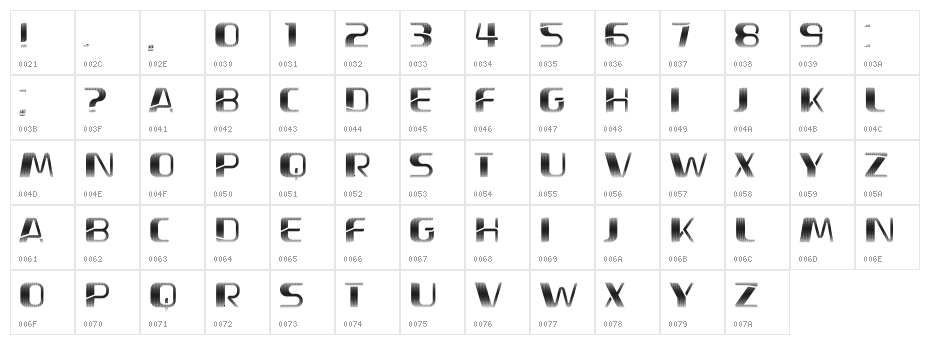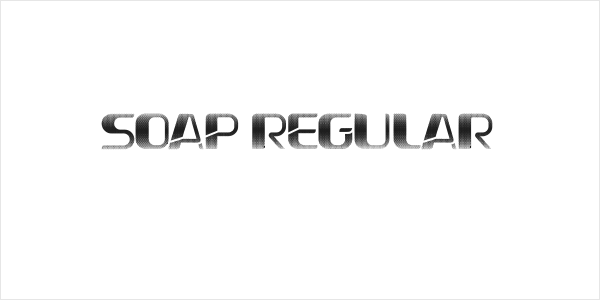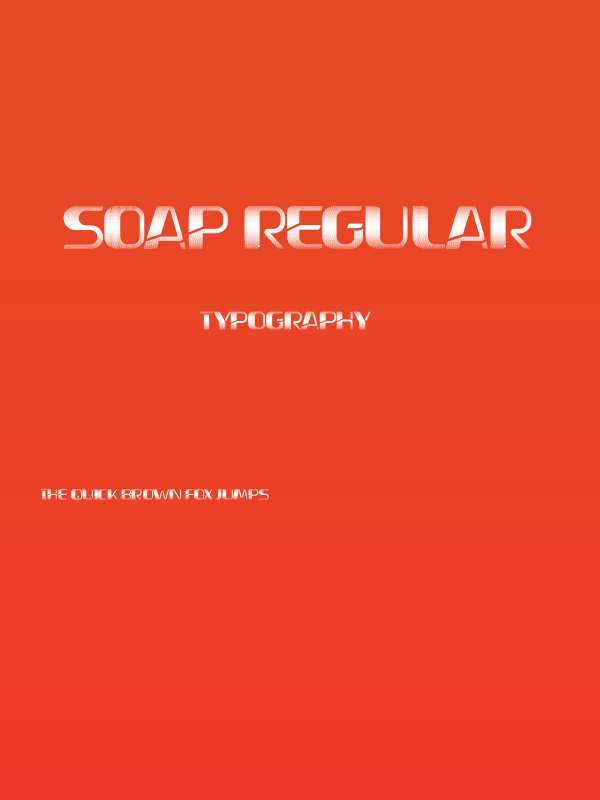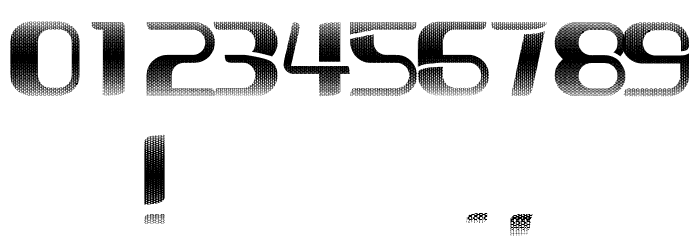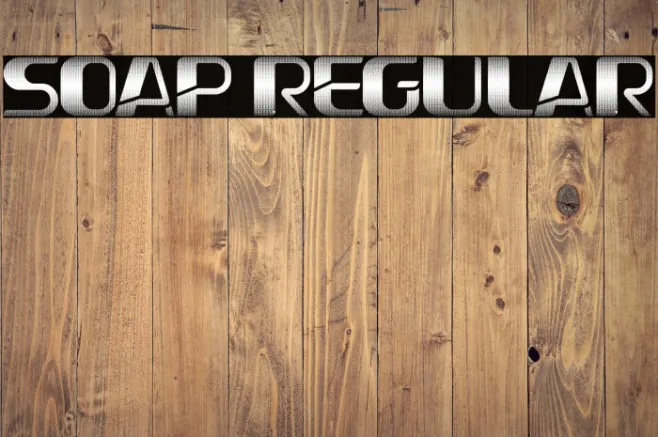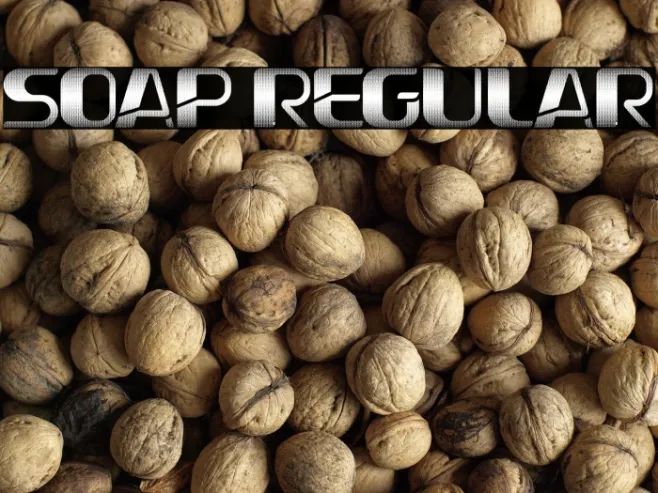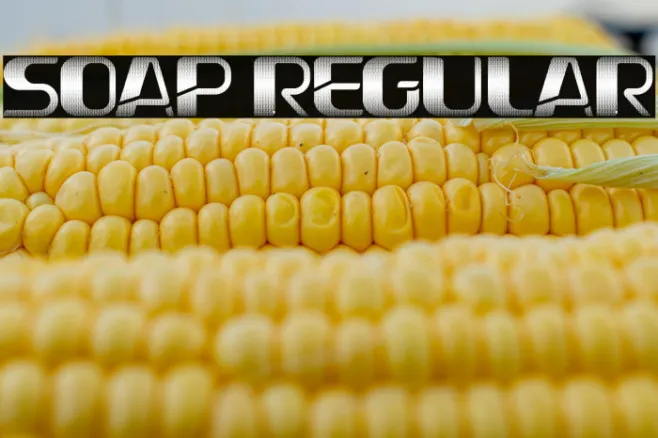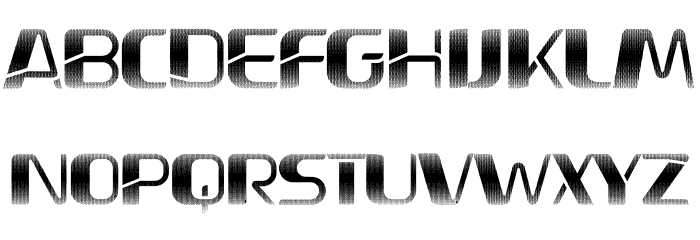
Soap Regular Font
Soap Regular Description
This font features a unique halftone gradient effect that gives it a dynamic and modern appearance. The characters are bold and wide, with a futuristic style that is emphasized by the dot pattern transitioning from dark to light. The uppercase letters are particularly striking, with sharp angles and a sense of movement. The numbers and special characters maintain this aesthetic, ensuring consistency across all glyphs. This font is ideal for projects that require a bold statement, combining both modern and digital elements.
| Proposed Projects | Ideal for digital art, tech branding, futuristic posters, and video game titles. |